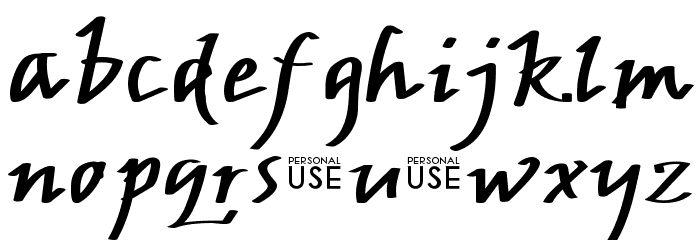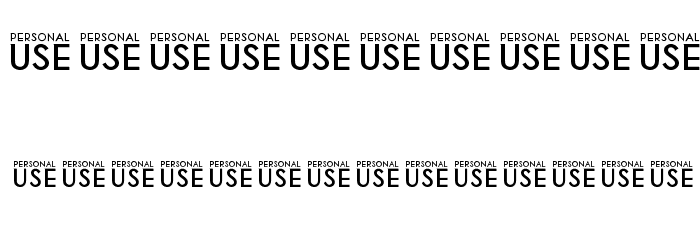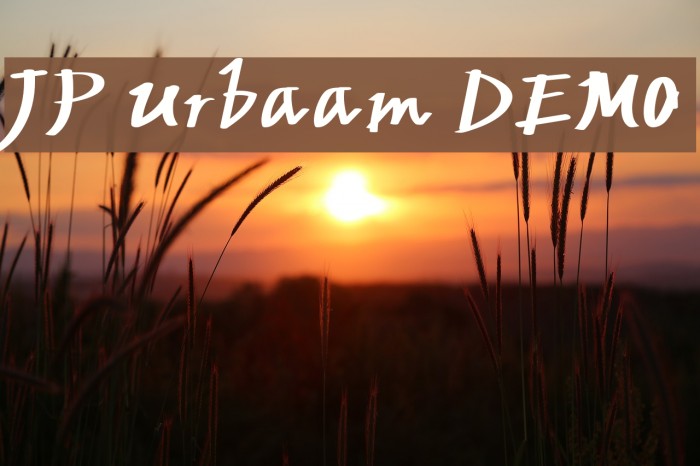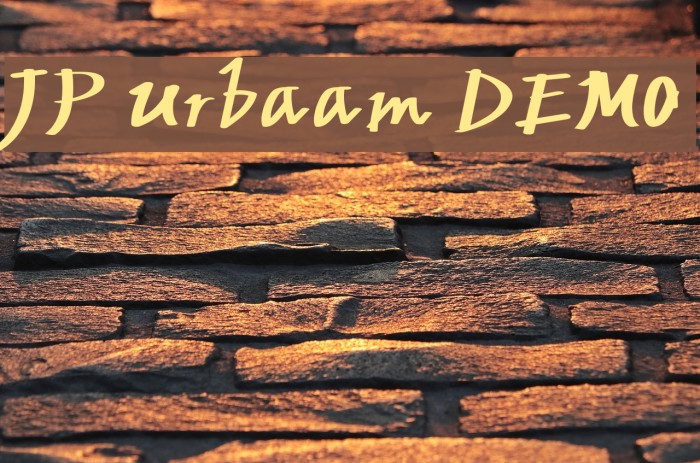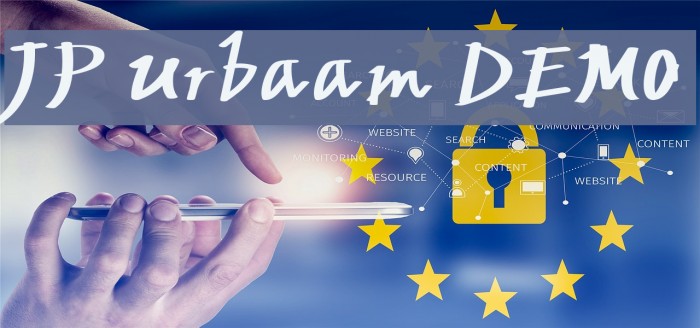
JP Urbaam DEMO Font
This font exhibits a dynamic and energetic style with a handwritten appearance. The letters are slightly slanted, giving a sense of motion and fluidity. The strokes vary in thickness, adding a lively and expressive character to the text. The uppercase letters are bold and prominent, while the lowercase letters maintain a consistent flow. The font's unique style makes it suitable for creative and artistic projects, where a personal touch is desired. The overall design is modern yet retains a classic handwritten charm.
A dynamic, handwritten-style font with expressive strokes.
- Proposed Projects: Ideal for branding, invitations, posters, and artistic projects that require a personal and creative touch.
- Use Case: Logos, Headlines, Artistic projects